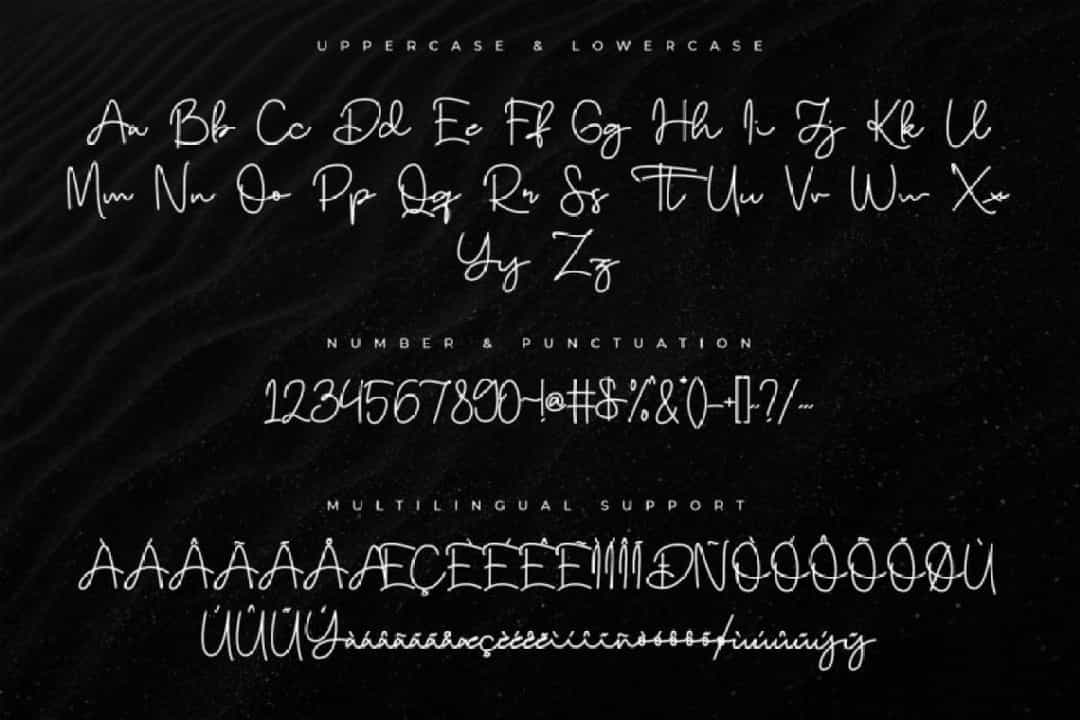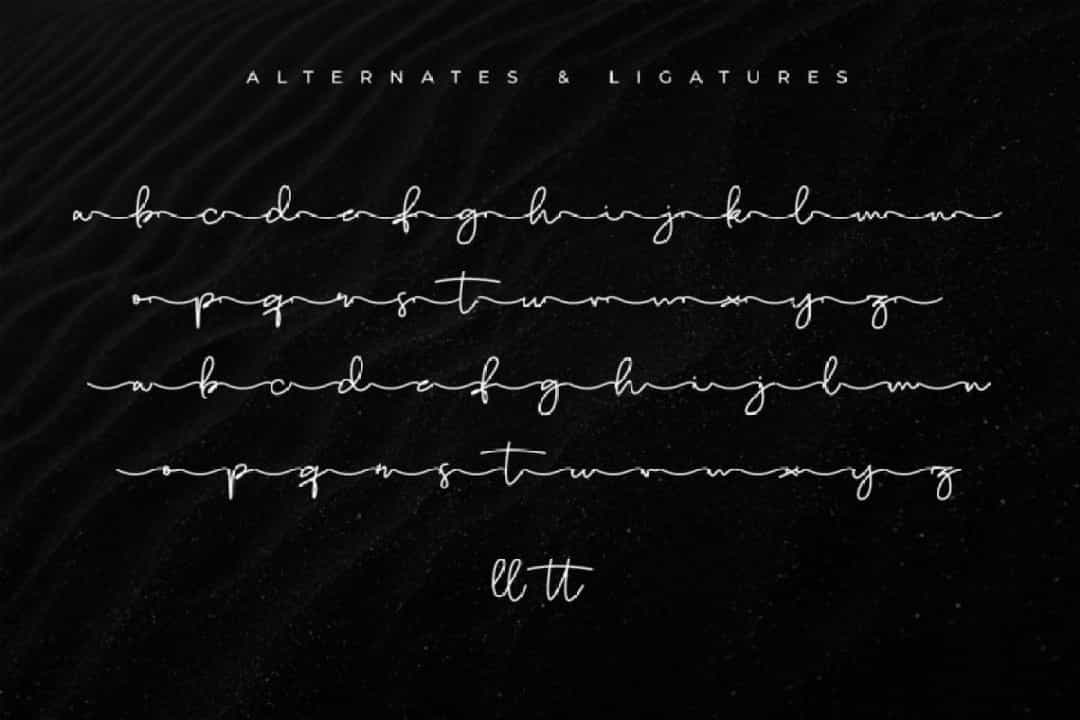
The Dailymunt handwriting font that is handwritten script font with the soft edges of the monolinear design. Stylish, beautiful and comfortable to read, Dailymunt can be applied in logo design for branding and product packaging, social media logo, books, business cards and many more.